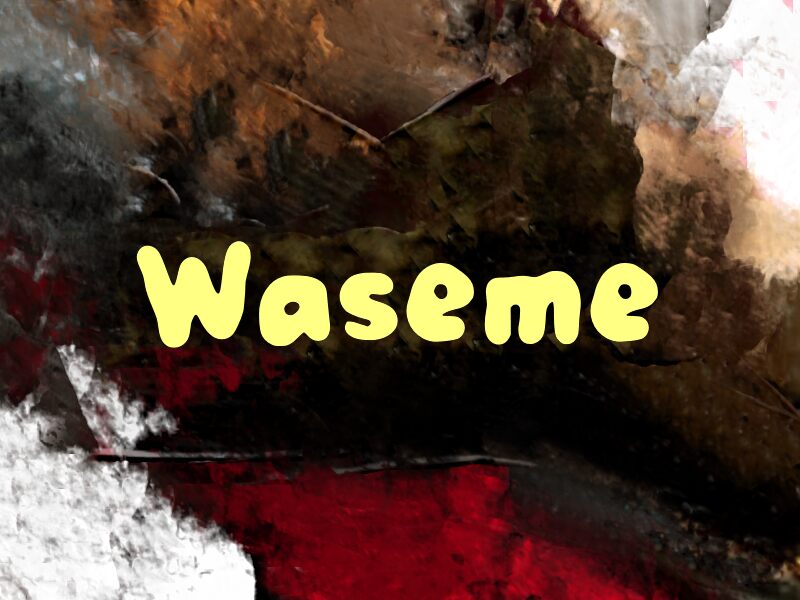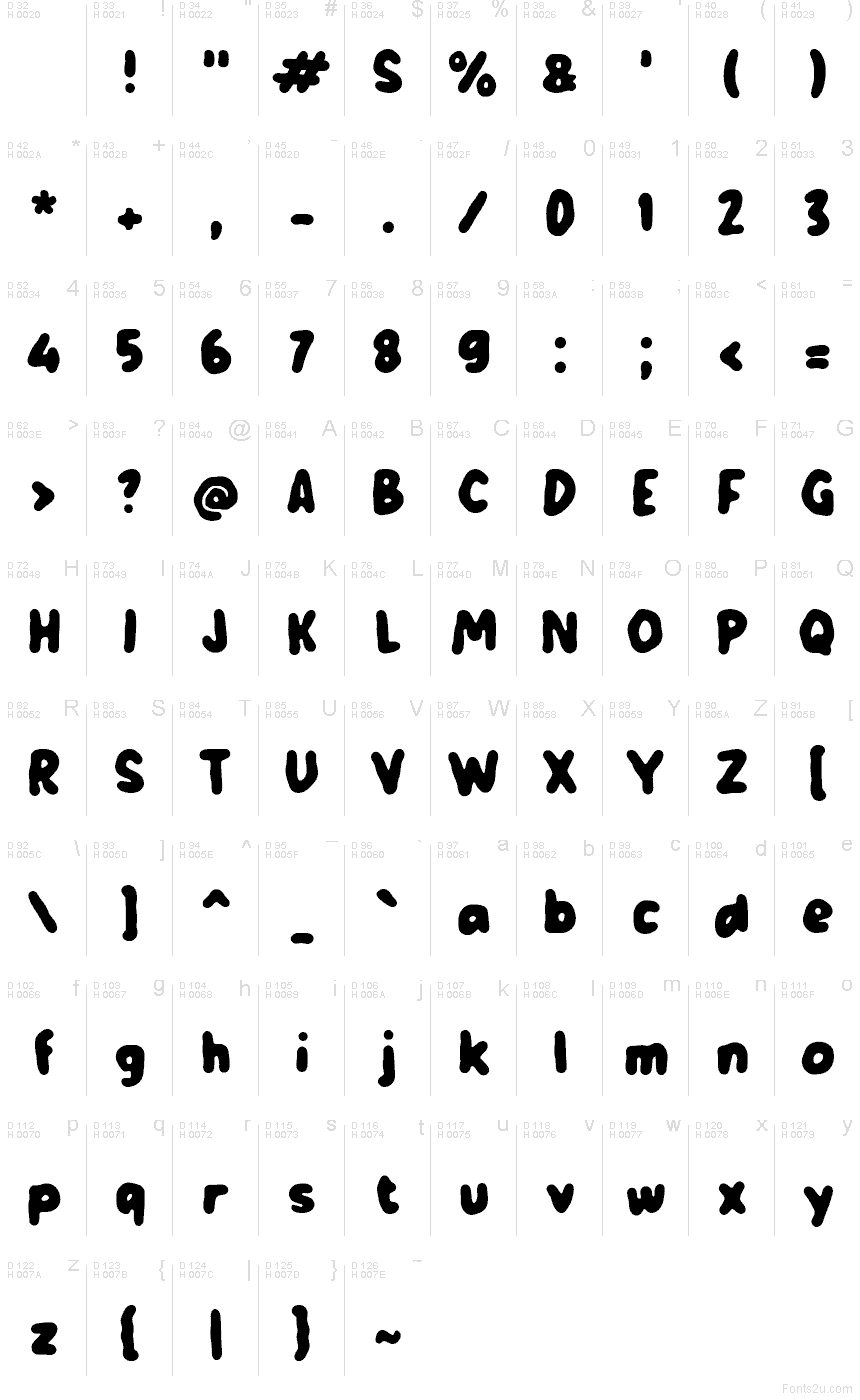
Waseme
Waseme font by wepfont.com is a free cartoon display typeface that looks like it was piped onto the page with thick, inky frosting. The letters are soft, chunky, and a little wobbly, giving every word a hand-drawn, goofy bounce. It reads clearly even at a distance, but never loses that blobby, playful texture that makes it feel straight out of a doodle-filled notebook or Saturday-morning cartoon.
Using Waseme, your headlines instantly feel friendly and fun, which makes this free font a natural fit for kids’ books, birthday invitations, toy packaging, classroom posters, game titles, and playful social graphics. It shines when used big and bold; pair it with a clean rounded sans serif for body text so the bubbly shapes can really stand out.